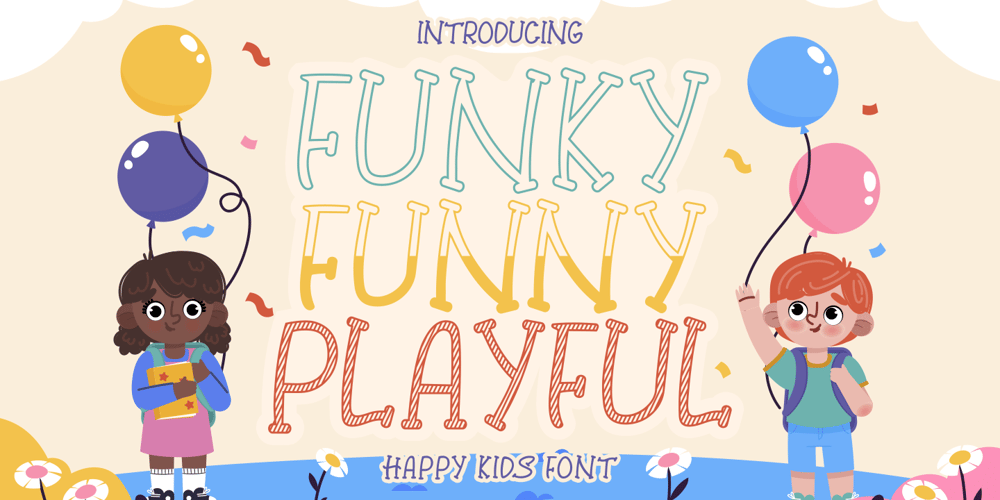
Funky Funny Playful Font Family was designed by Putra Novembria Candra Kusuma and published by Putracetol. Funky Funny Playful contains 4 styles and family package options. Dive into a world of imagination and fun with the Funky Funny Playful – Happy Kids Font. This vibrant and dynamic font is designed to capture the essence of childhood joy and playfulness. With its bold colors and quirky shapes, each letter brings a burst of energy and creativity to any design. It’s the perfect font for projects that aim to delight and engage, from logos and branding to crafting and invitations.The Funky Funny Playful font is not just about looks; it’s about evoking the carefree spirit of youth. Its versatility makes it suitable for a wide range of applications, including packaging that pops off the shelves, posters that turn heads, titles that tell a story, business materials that stand out, greeting cards that smile back, stickers that spread happiness, children’s books that ignite wonder, and magazines that speak in a fun voice.